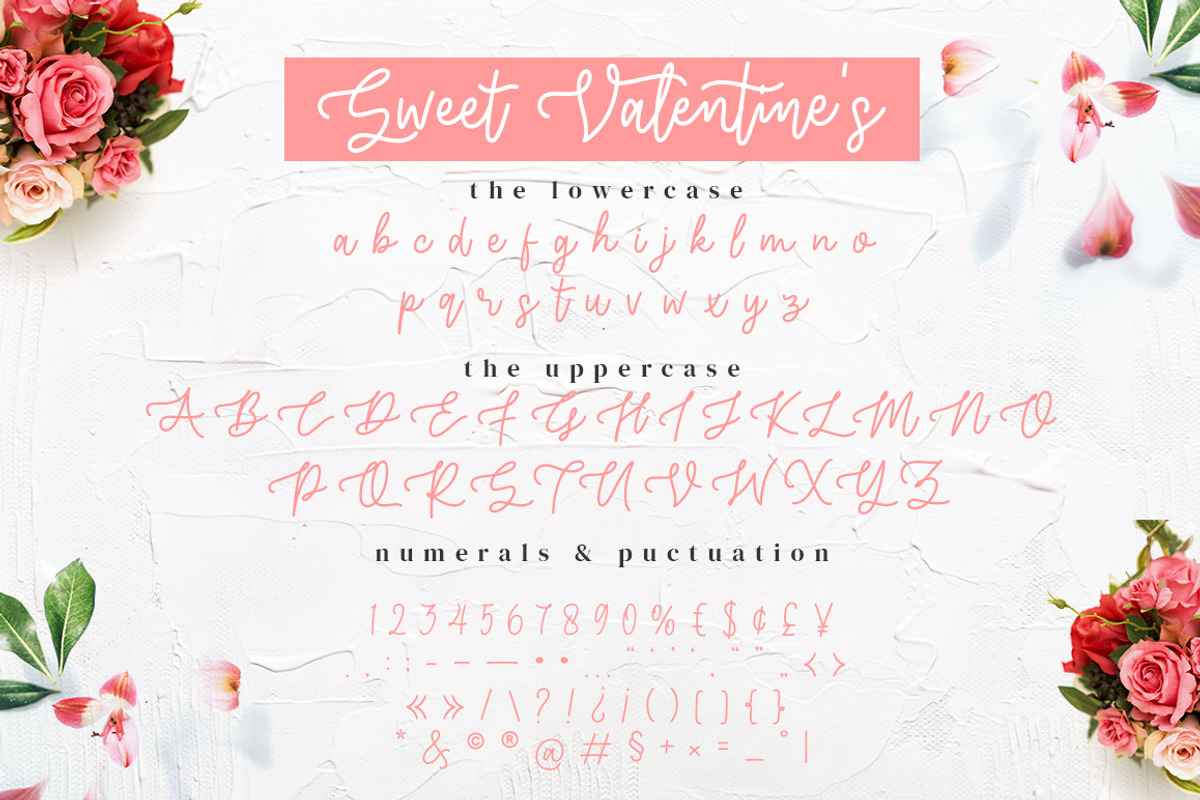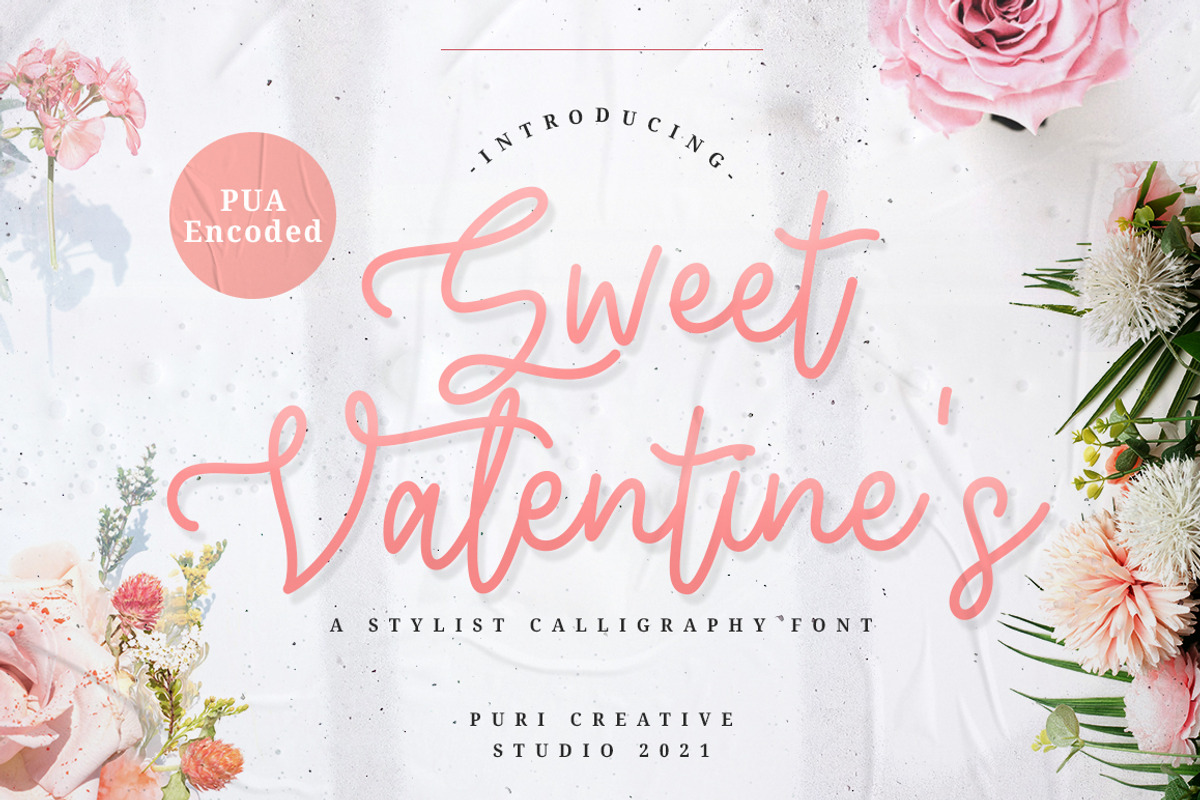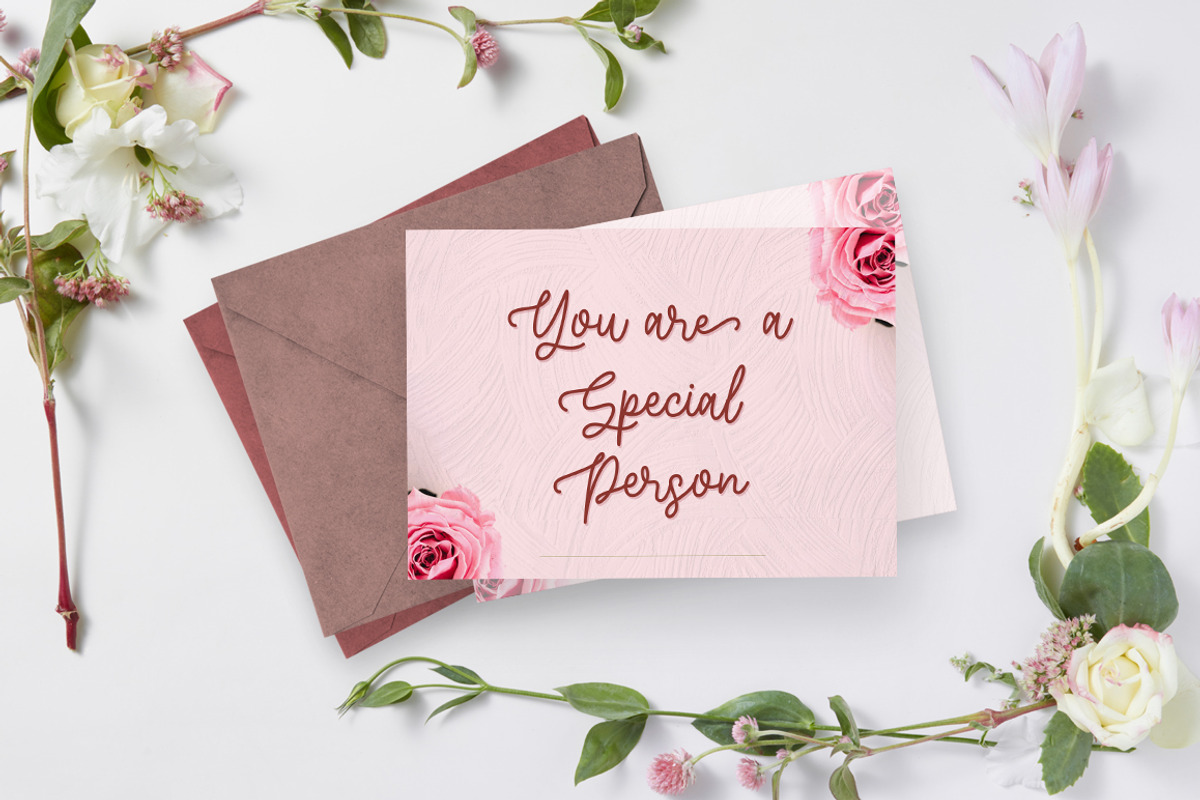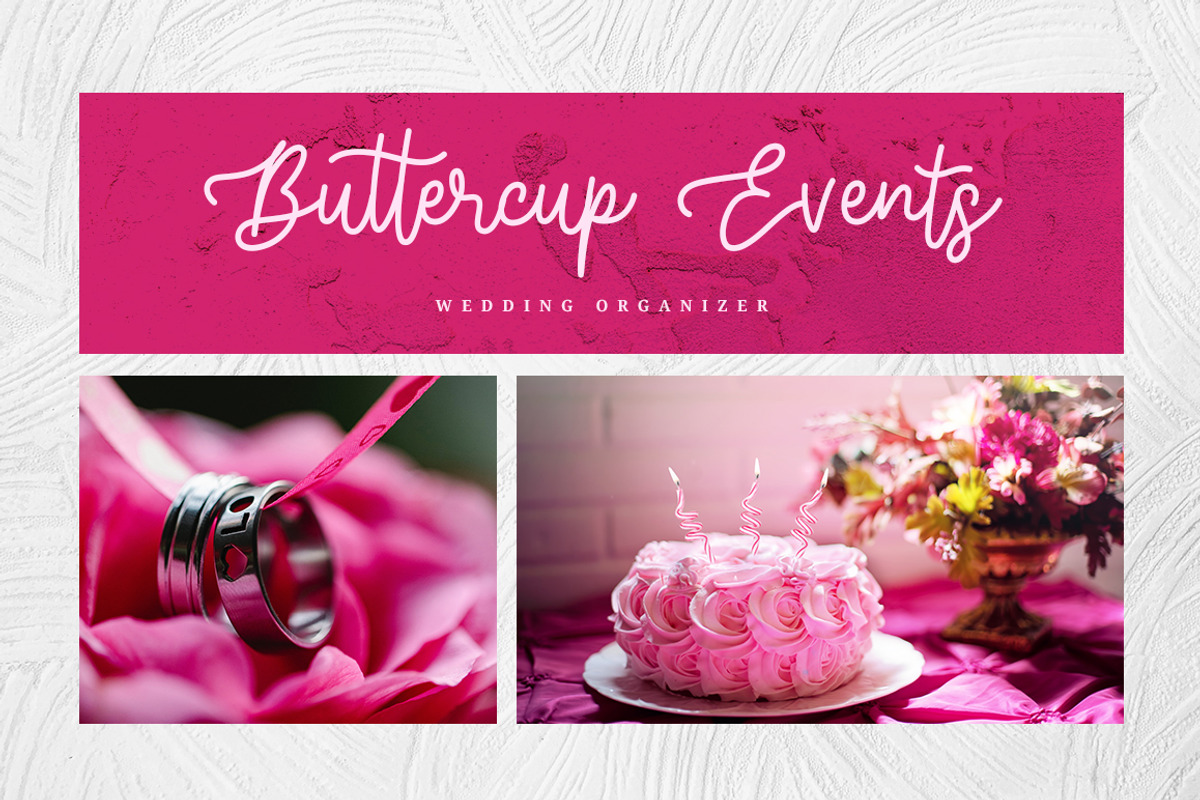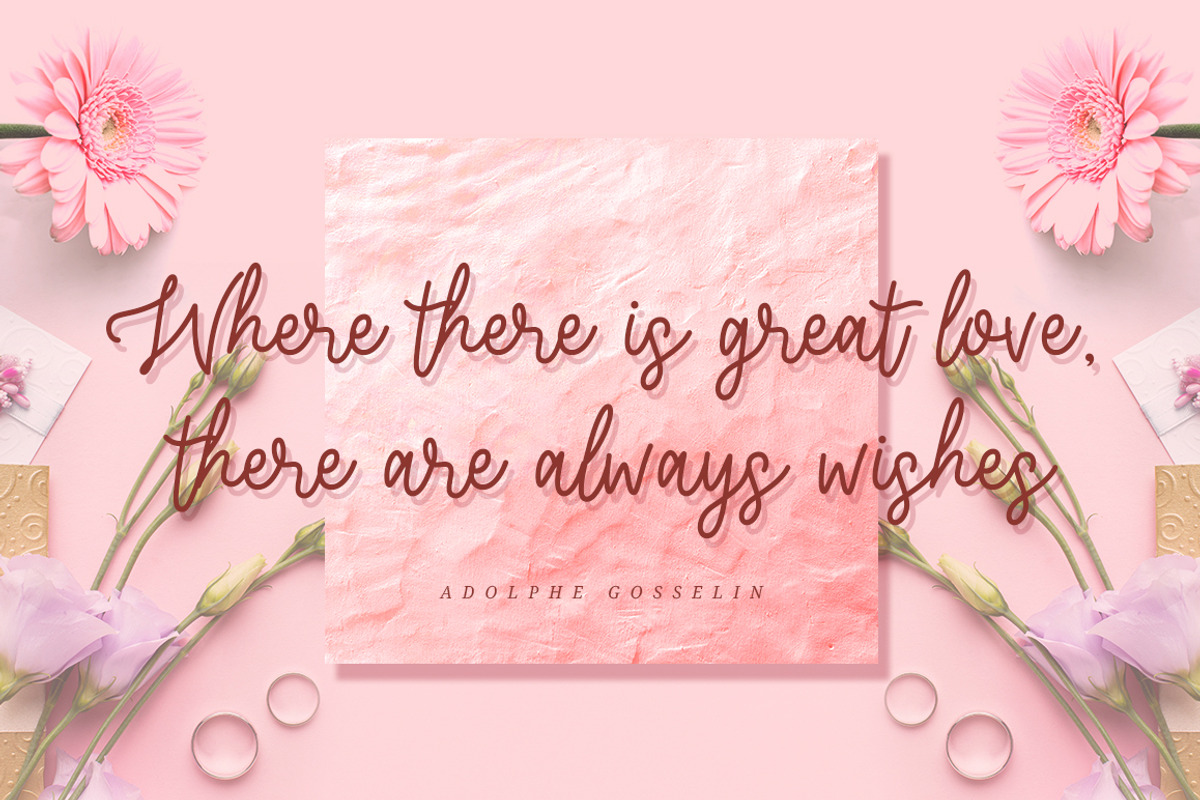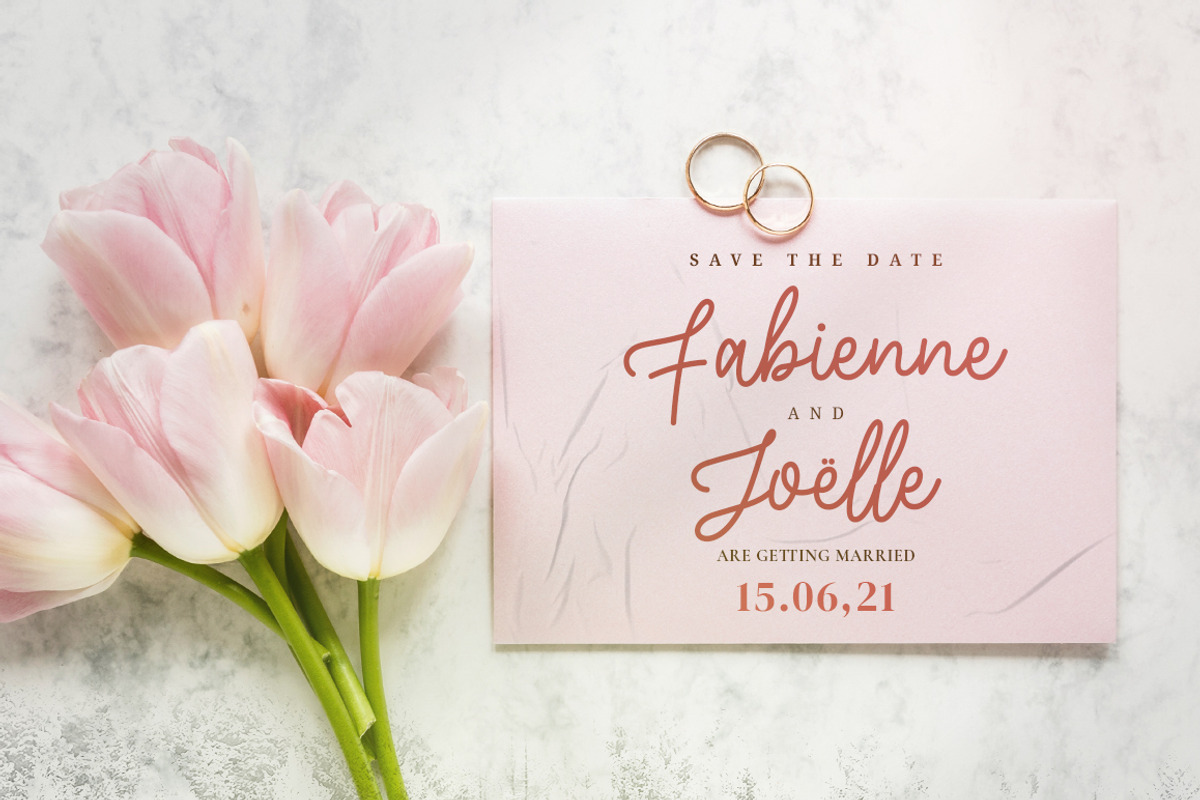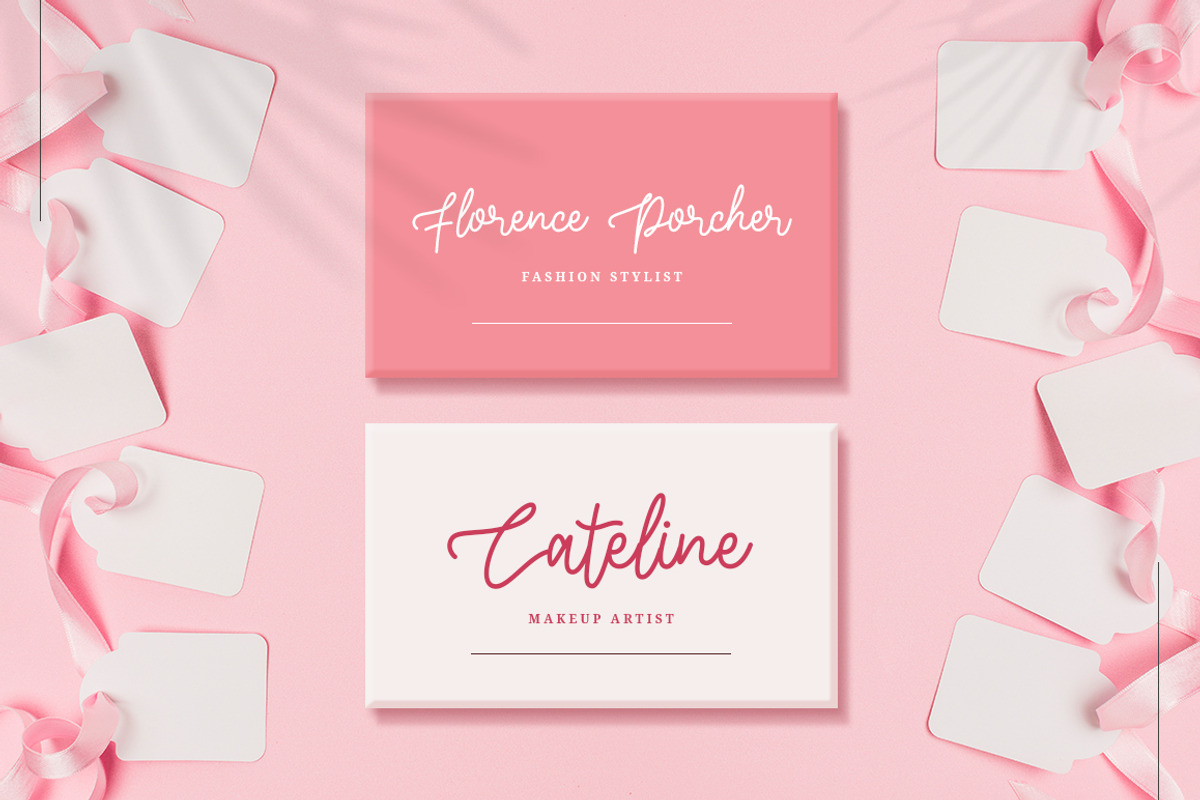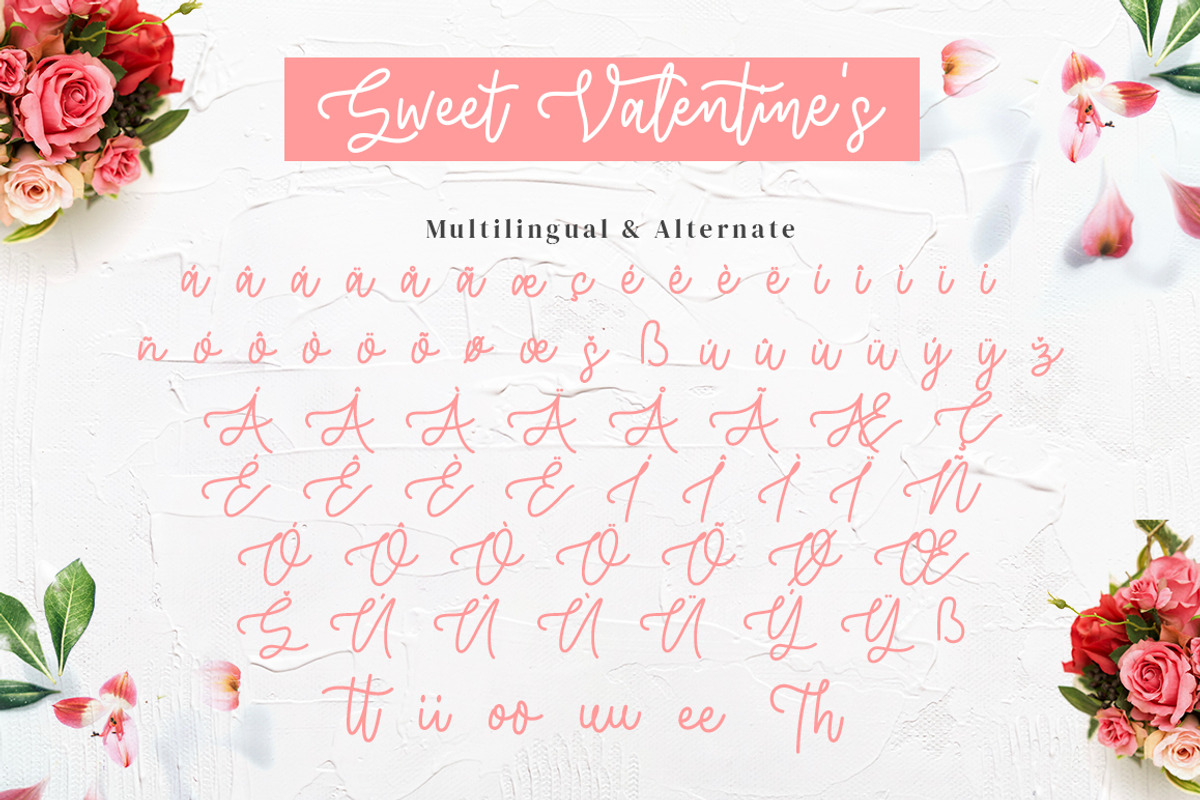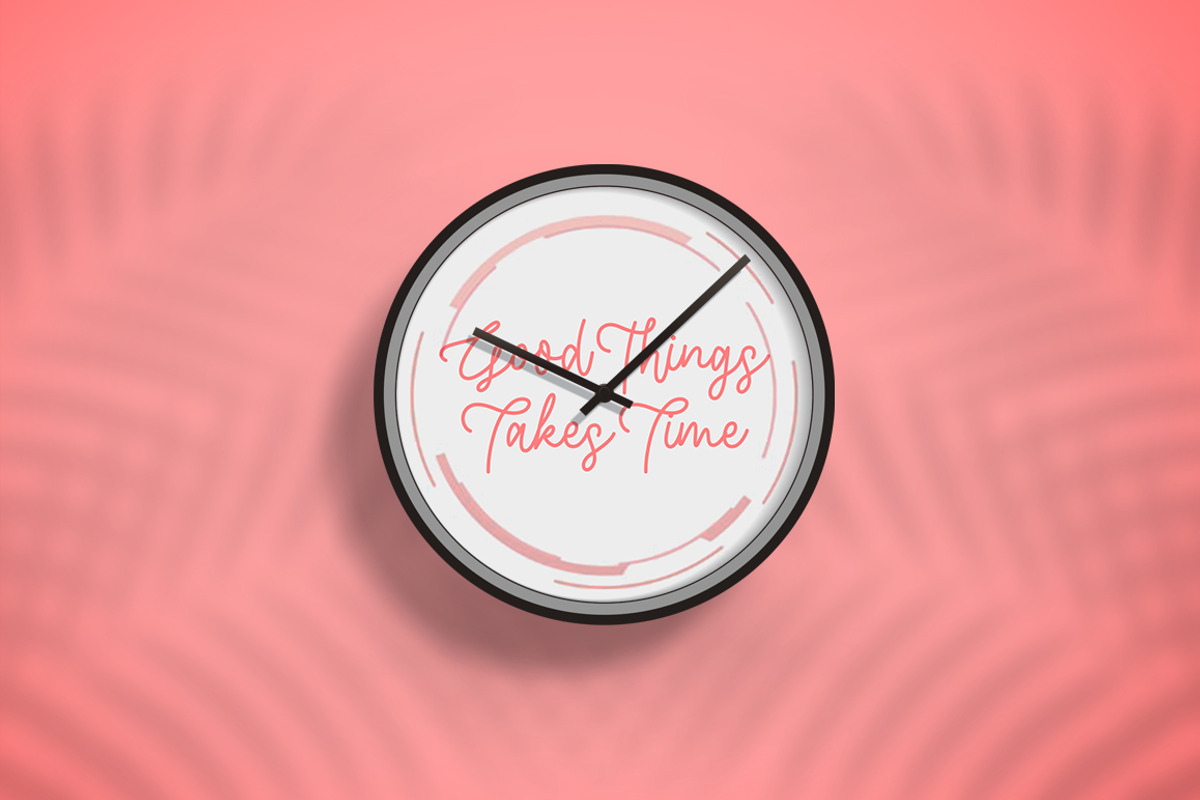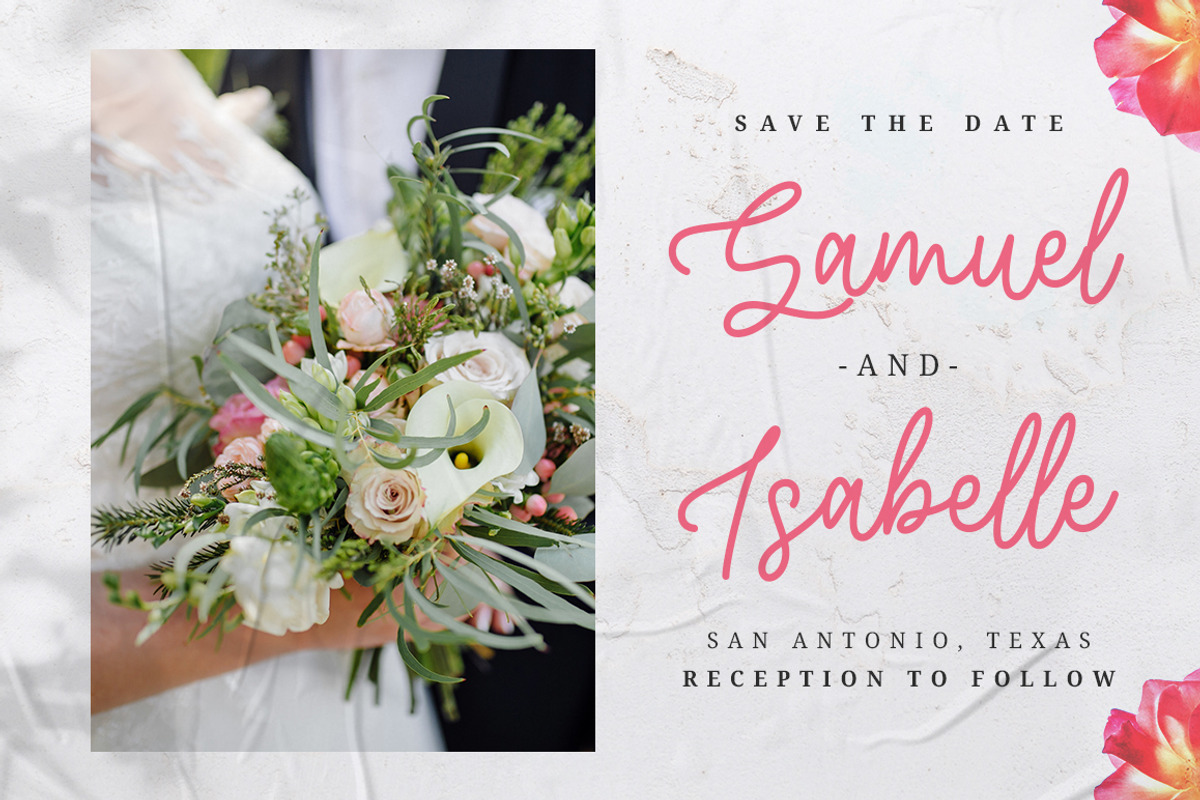
Sweet Valentine's - Stylish Font
Sweet Valentine's - Stylish Calligraphy Font
Say hello to "Sweet Valentine's Font". A beautiful and sweet new hand lettered font for simple type in quotes, greeting card, wedding card, book cover and so much more. This script is dedicated to Valentine Day and all lovers.
A cursive font containing upper and lowercase characters, numerals and punctuation.
- Special ligatures
- Mulitilingual support